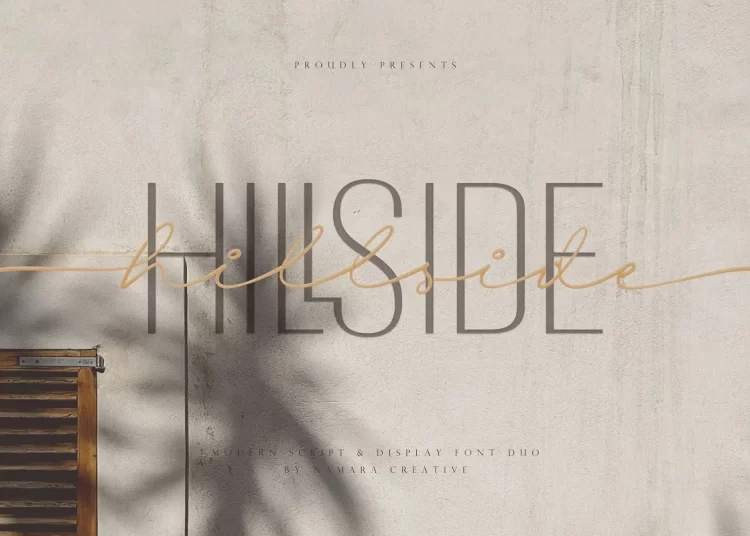
Hillside Font Duo
Elevate your design projects with the perfect balance of simplicity and elegance – meet the Hillside Modern Font Duo! This dynamic duo combines a sleek and minimalist display font with a sophisticated cursive script, offering the best of both worlds for your creative endeavors.
The clean lines of the sans serif display font exude modernity, while the flowing curves of the script font add a touch of sophistication and charm. Whether you’re crafting logos, branding materials, invitations, packaging, or any other design project, the Hillside Font Duo is your secret weapon for achieving a polished and professional look.
Versatile and adaptable, this font duo lends itself effortlessly to a variety of design styles and applications. From sleek and contemporary to personalized and decorative, the possibilities are endless.
Hillside Font Duo